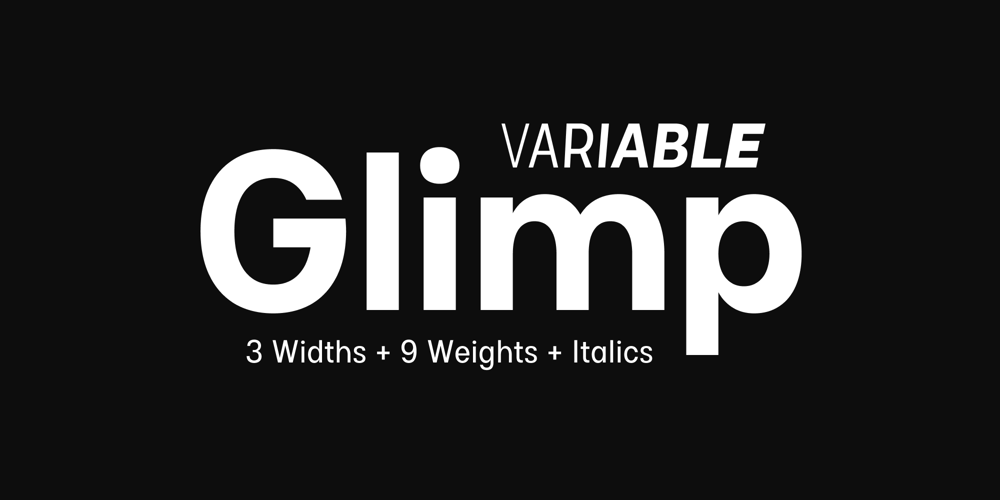
Glimp Variable Font Family was designed by Abhishek Junghare and published by OneSevenPointFive. Glimp Variable contains 1 styles and family package options. Variable version of ‘Glimp’ font familyGlimp Variable supports 3 axis flexibility across width, weight and italic in a single font. It also comes with the static styles available as options in the font style selection menu. It features rich set of opentype features such as stylistic sets, contextual alternates, case sensitive forms, superscripts, subscripts, fractions, and more.Glimp Variable is made to be your go-to choice for a wide range of projects, whether you’re working on branding, web design, print materials, or presentations. It elevates your designs or brand effortlessly, embracing your creative vision.Variable Axis Ranges: Width – wdth – 75 to 100 Weight – wght – 100 to 900 Italic – ital – 0 to 1